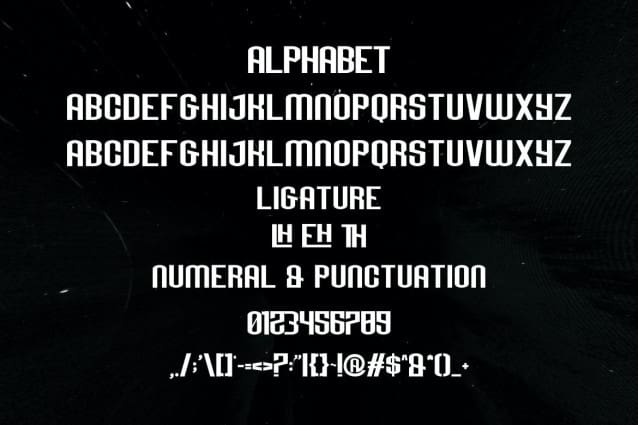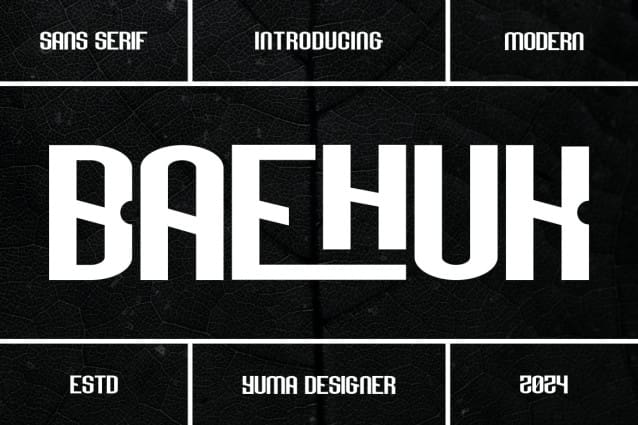
Baehuk Font
Baehuk Font is a modern and simple font ideal for displaying titles, logos, branding, magazines, product packaging and invitations. Baehuks feature clean lines and gentle curves that give any project an extra touch of class